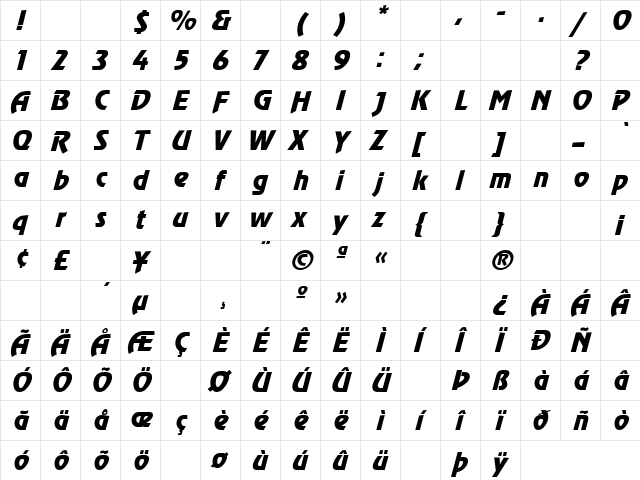
Blue Jeans 7 Italic
Design Context for Blue Jeans 7 Typeface
Blue Jeans 7 takes a measured approach to typography — its balanced proportions and neutral character make it a reliable workhorse for both digital and print work. The dynamic lean of this cut emphasises speed and emphasis in any layout.
Pro Tip: Use Blue Jeans 7 for emphasis, pull quotes, and subheadings where its slanted energy can add rhythm to the layout.